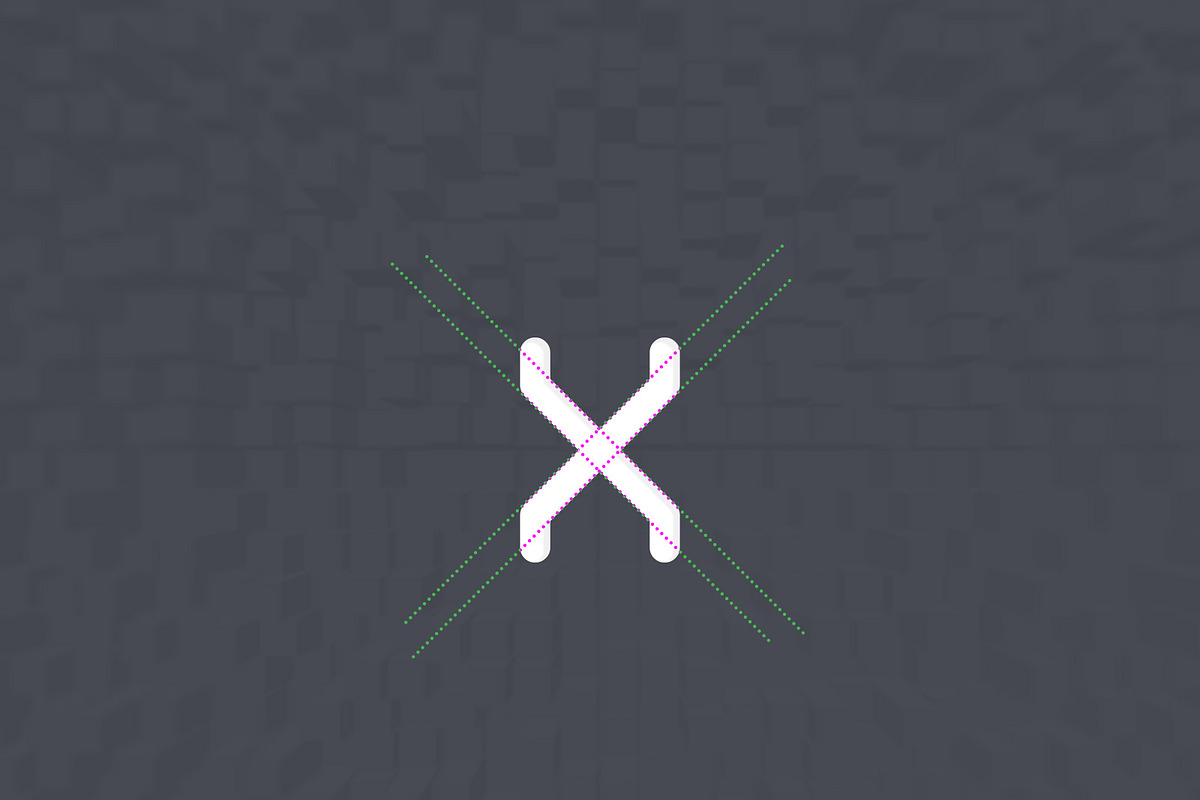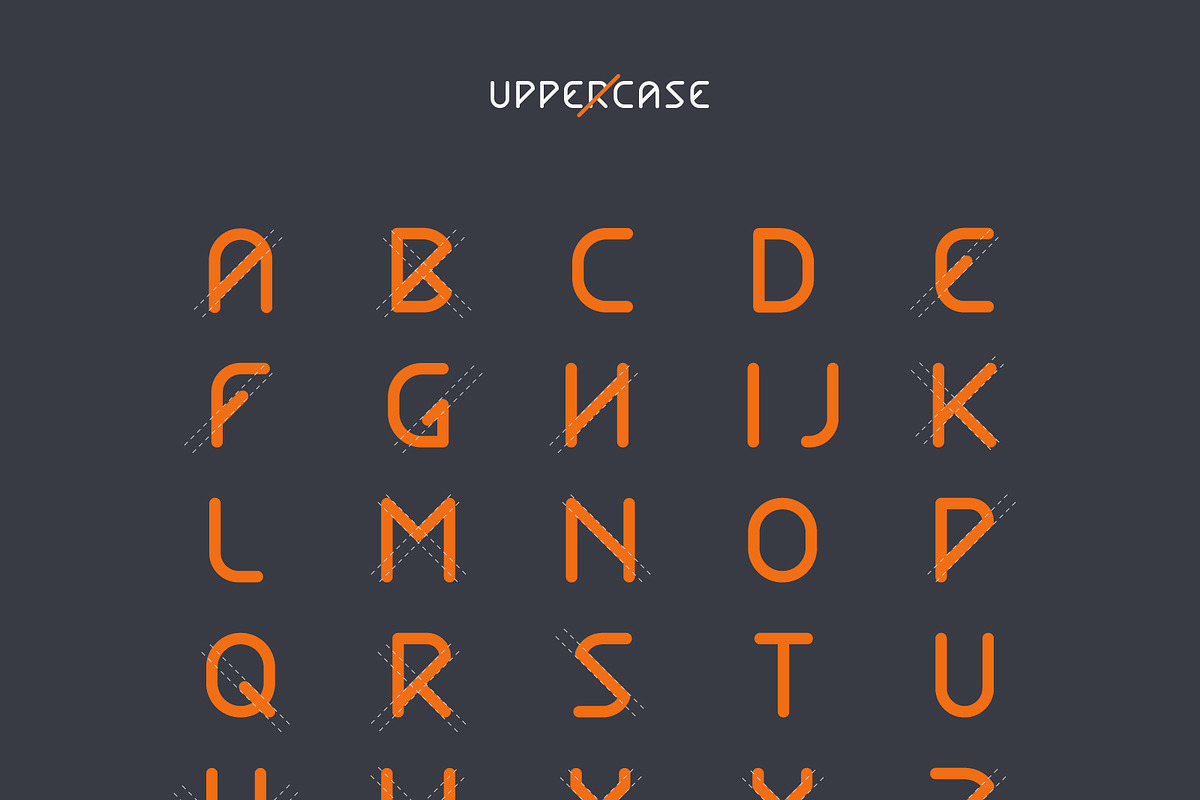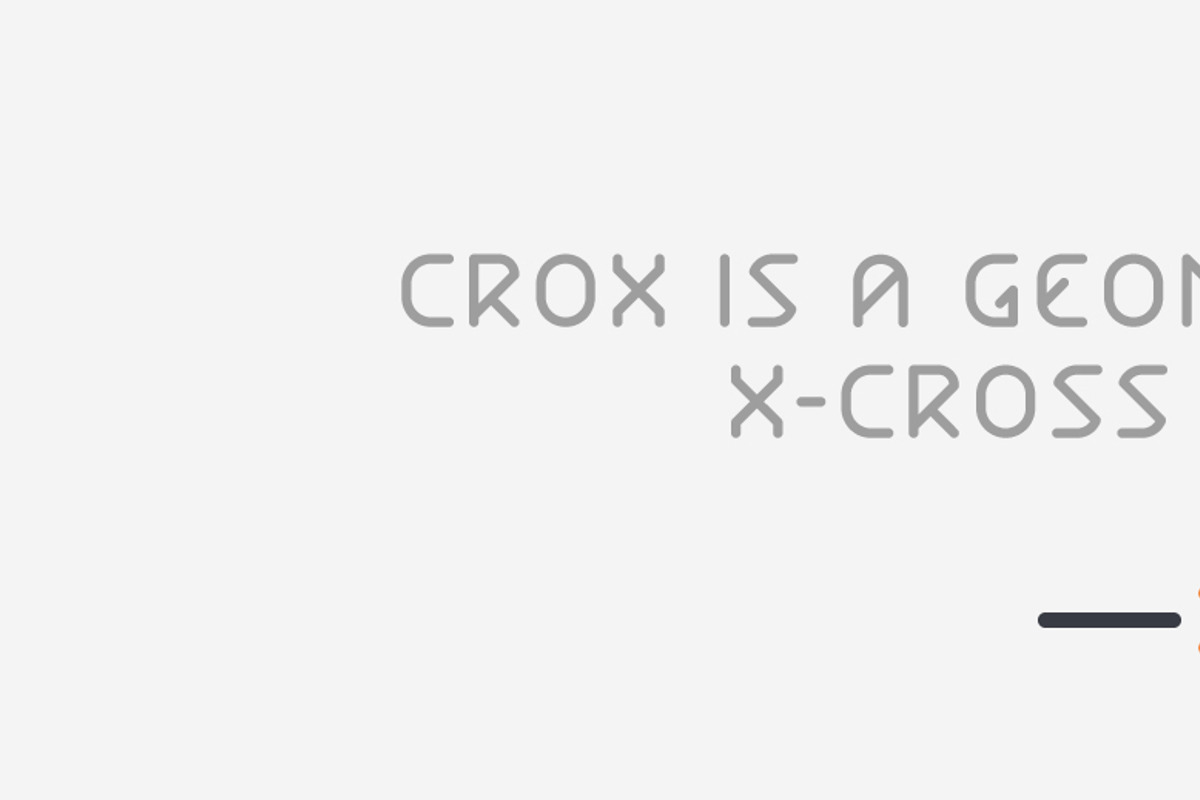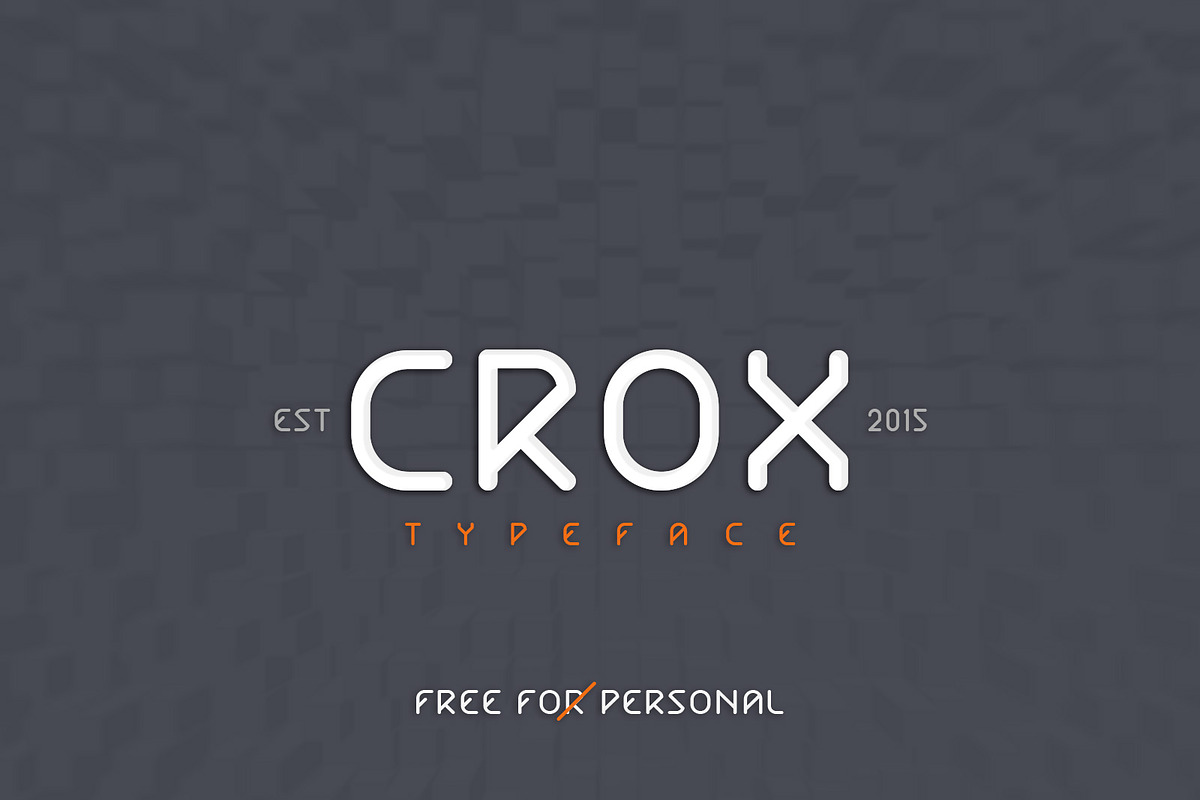
CROX Typeface
CROX Typeface by j3world is a font selected for branding, posters, packaging, typography.
Why CROX Typeface is worth a look
CROX Typeface by j3world fits naturally into Branding, posters, packaging, typography.